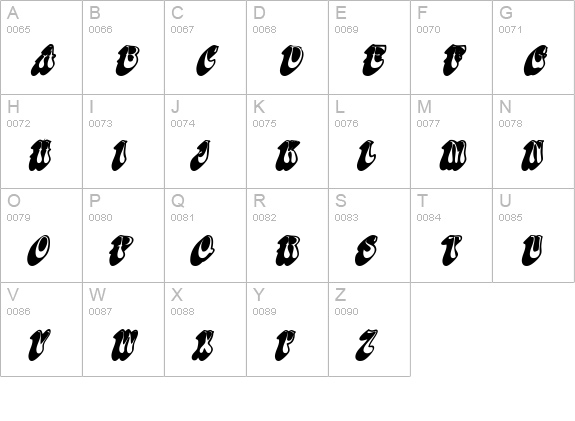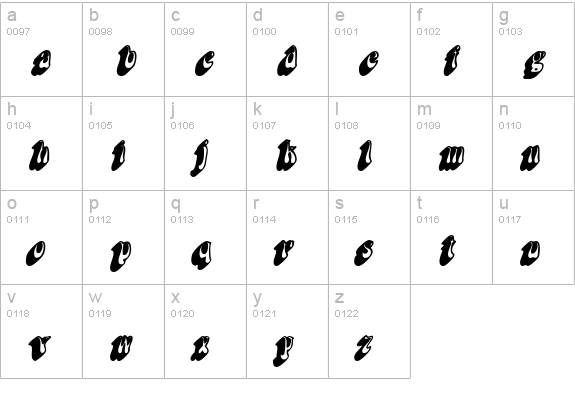
BoopShadow Bold Italic Font Details
BoopShadow Bold Italic is a strong, high-contrast, italic variant in the BoopShadow typeface family \xE2\x80\x94 well suited to headlines, attention-grabbing titles, and strong calls-to-action.
Introducing BoopShadow Bold Italic font - a striking and modern typeface designed to make a bold statement in your projects. With its unique blend of elegance and edginess, this font is perfect for adding a touch of sophistication to your designs. BoopShadow Bold Italic features strong, bold lines and distinctive italic styling that will make your text stand out. What's even better is that BoopShadow Bold Italic font is available for free download at FontsMarket.com. You can easily access this stylish typeface and elevate your design work without breaking the bank. Whether you're working on branding, advertising, or any other creative project, BoopShadow Bold Italic font is sure to make a lasting impression. Download BoopShadow Bold Italic font today and unleash your creativity with this versatile and eye-catching typeface.